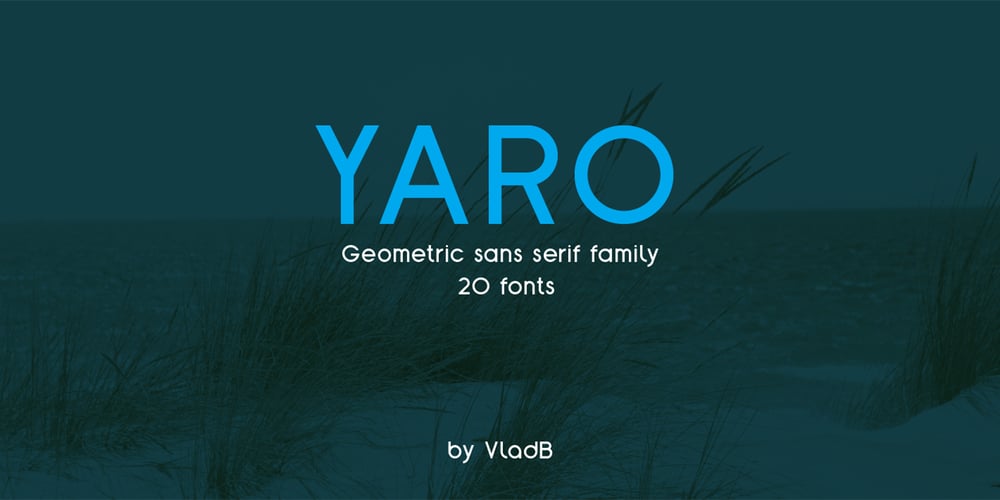
Yaro Font Family was designed by Volodymyr Berla and published by VladB. Yaro contains 20 styles and family package options. Yaro is a modern sans serif geometric font, includes upper and lower case characters, Latin, Cyrillic, Latin Extended symbols and other.The Yaro family consists of 20 fonts, divided into 4 subgroups (according to the type of style – St, Op, Rg, Cut, Bl), and have the 4 types of thickness in each subgroup.Yaro fonts will be useful in developing a brand, creating posters and other graphic products, and for word processing.